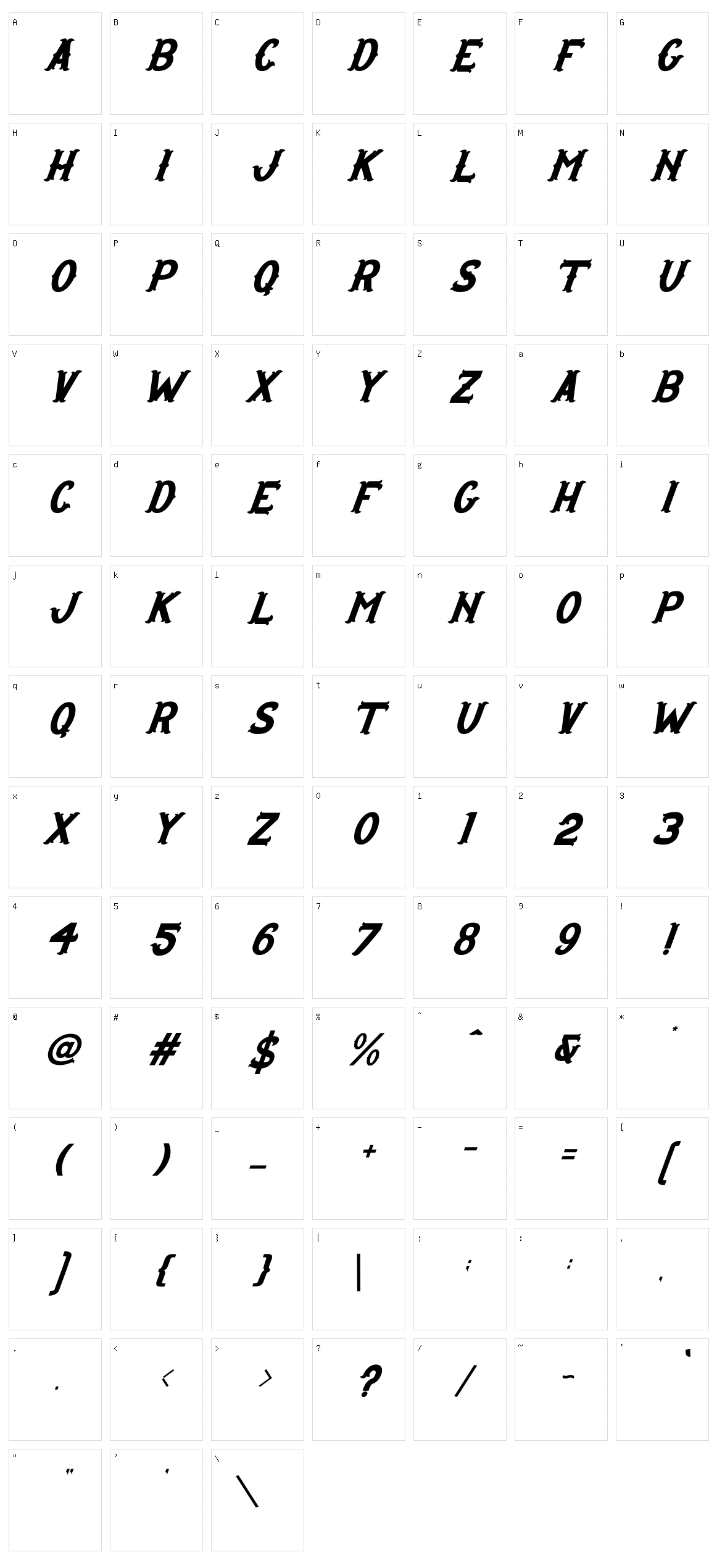
The free font West Thistle is carefully designed by Display Studio, showcasing a thoughtful balance of creativity and usability and falls under the Western font style. When you download the ZIP file, it contains only 356.65 KB of font files, making it lightweight and quick to download. Please review the license details below to understand permitted usage and distribution rights. If license information is not available, we recommend using this font for personal projects only or contacting the author directly for commercial usage permissions.